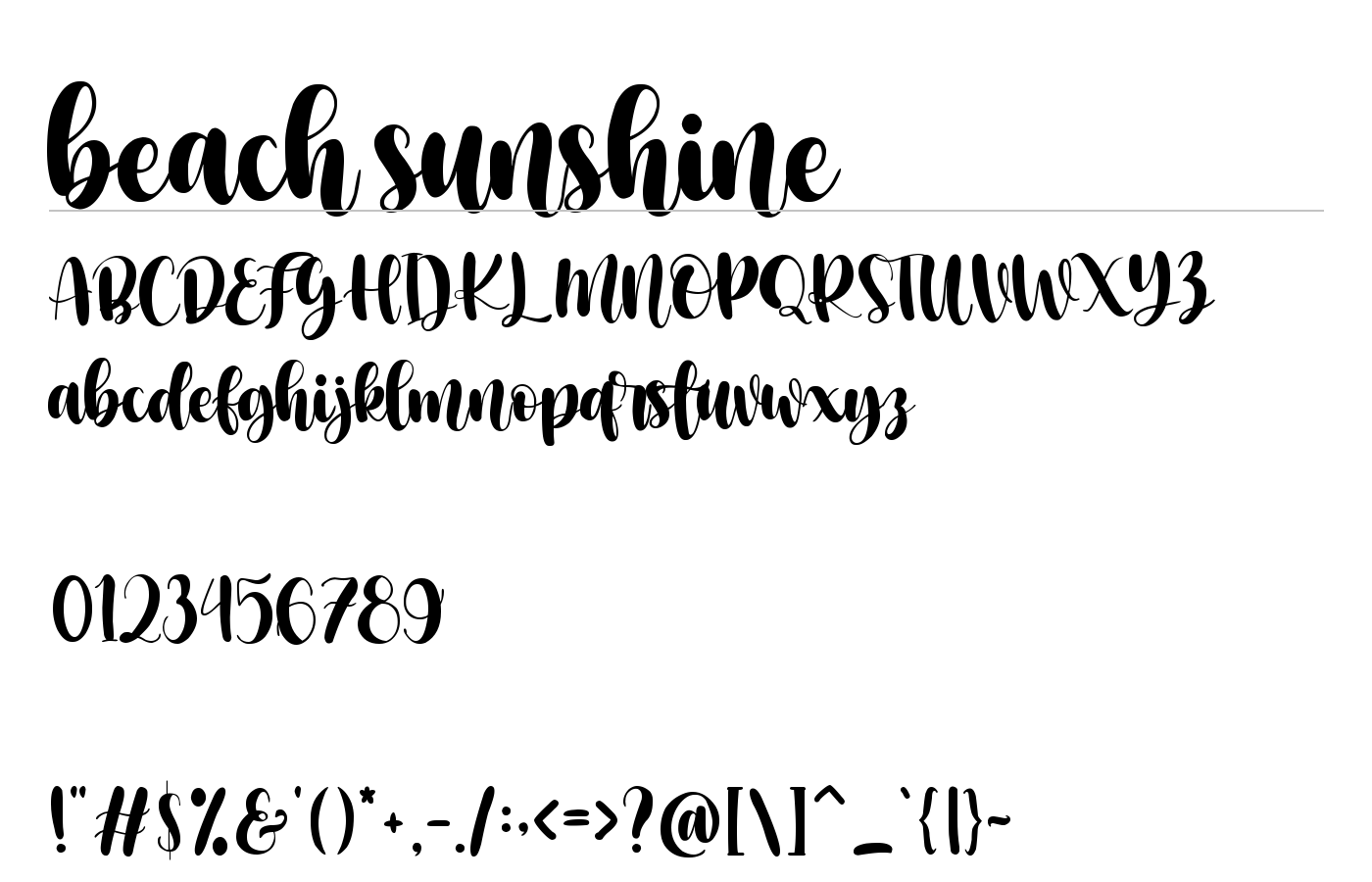
Beach Sunshine is a lively and elegant script font with bold, flowing strokes that give it a playful yet polished feel. Its thick and thin contrasts along with charming swashes make it perfect for creative branding, invitations, and headlines that need a warm, friendly touch. This font shines in projects that want to evoke a sunny, joyful vibe with a modern handwritten style.
beach sunshine Font
About beach sunshine Font